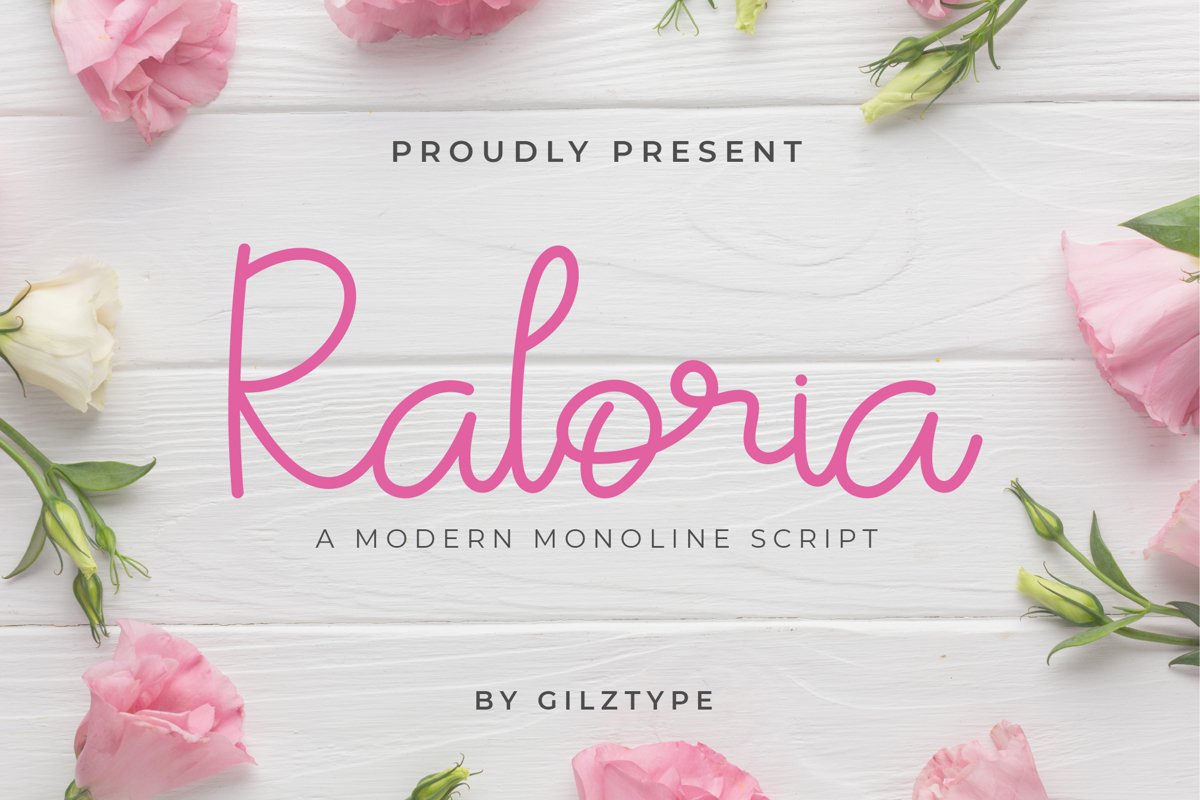
Raloria - A Modern Monoline Script
Raloria
Introducing Raloria - A Modern Monoline Script
This font is perfect for professional branding, social media headline, quotes, cards, wedding invitation, product design, labels, logos, apparel design and much more!